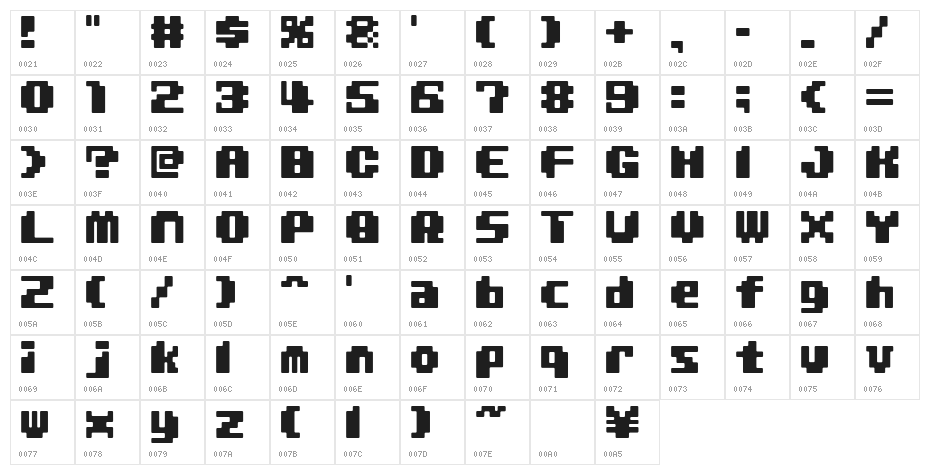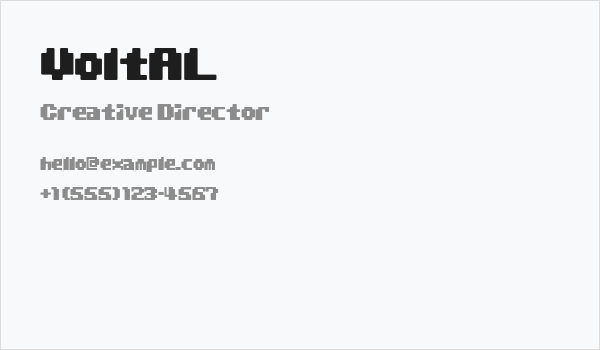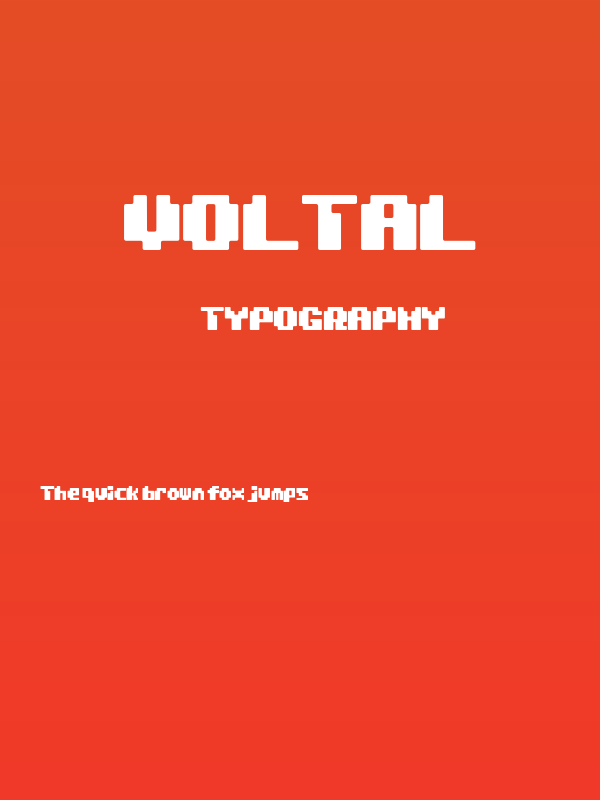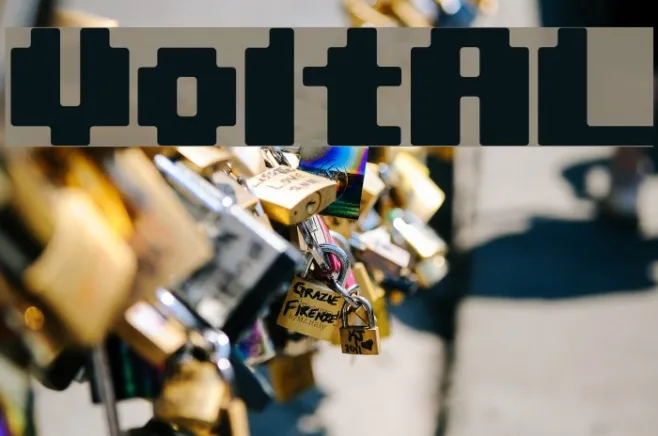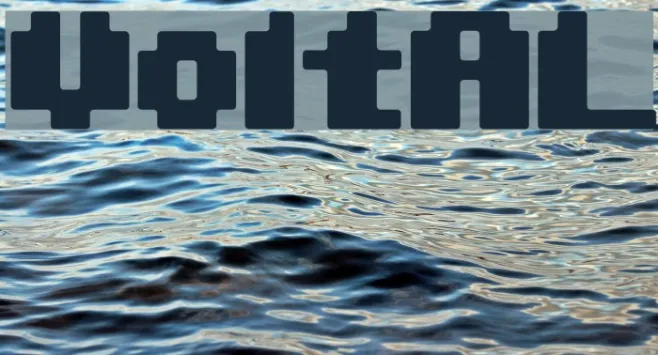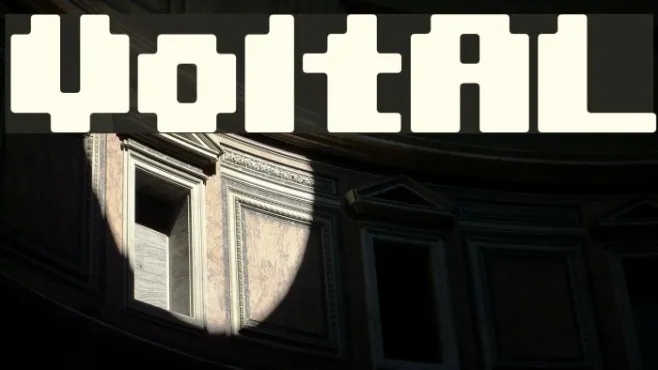
VoltAL Font
VoltAL Description
This font features a bold, blocky design with a distinctly digital or pixelated aesthetic. Each character is composed of solid, rectangular shapes that give it a strong, impactful presence. The uniformity in stroke width across all characters contributes to a cohesive and structured appearance. The font's geometric nature is reminiscent of early digital displays or retro video game graphics, making it ideal for projects that aim to evoke a sense of nostalgia or a futuristic vibe. The uppercase and lowercase letters maintain a consistent style, with the lowercase being slightly more compact. Numbers and special characters follow the same design principles, ensuring a harmonious look across all text elements.
| Proposed Projects | Ideal for video game titles, tech-themed posters, digital art projects, and retro-style branding. |